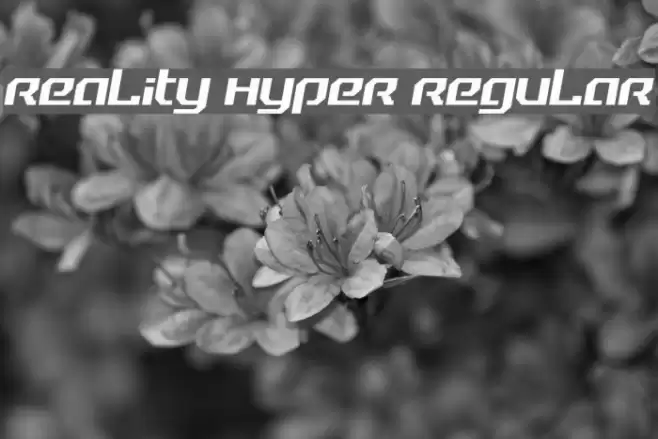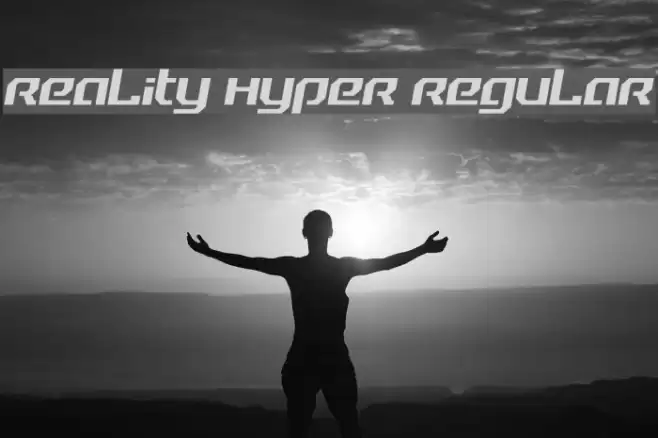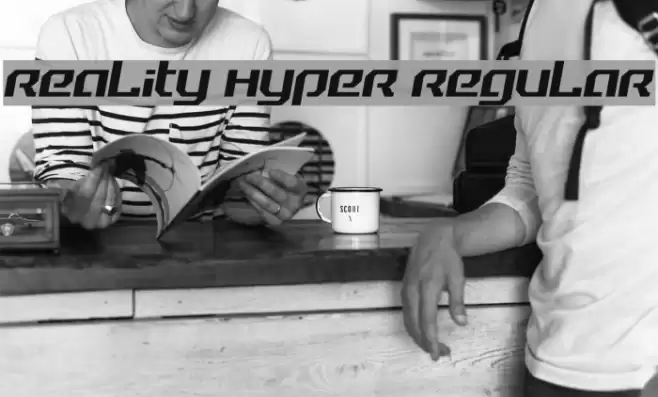
Reality Hyper Regular Font
Reality Hyper Regular Description
This font features a bold and futuristic design with angular, geometric shapes. The characters are sharply defined, giving a sense of speed and modernity. The uppercase and lowercase letters maintain a consistent style, with a slight slant that adds dynamism. The numerals and special characters are equally bold, ensuring uniformity across all text. The font's unique style makes it stand out, ideal for projects that require a strong visual impact.
A bold, angular font with a futuristic and dynamic style from Futuristic fonts.
- Proposed Projects: Ideal for sci-fi themed designs, video game titles, tech branding, and modern advertising.